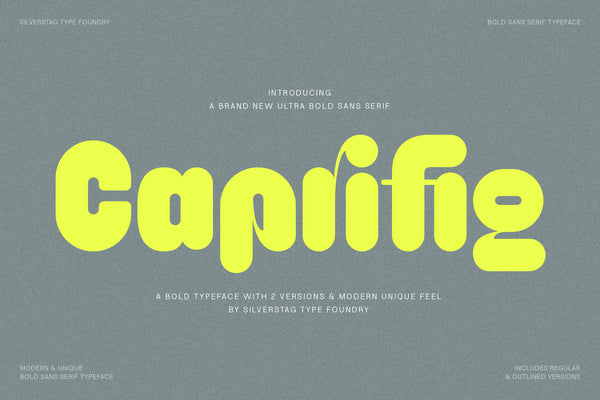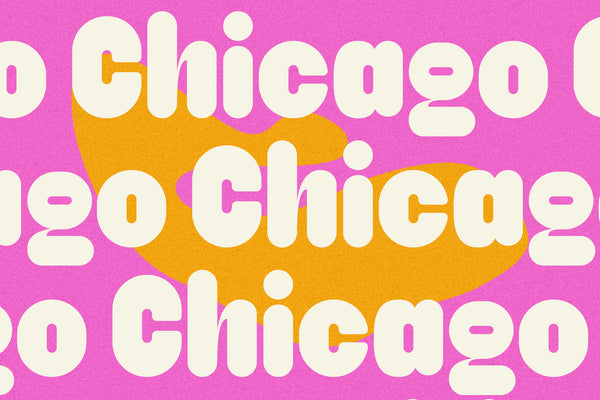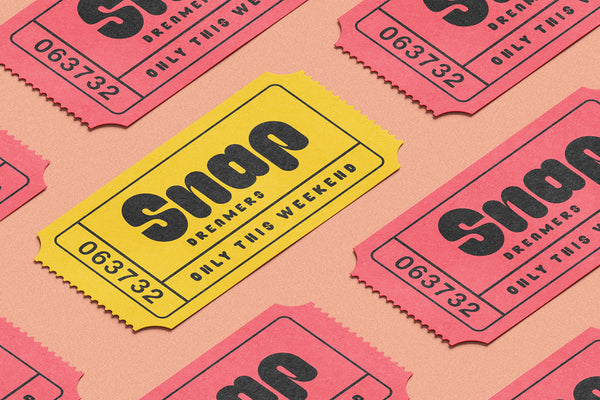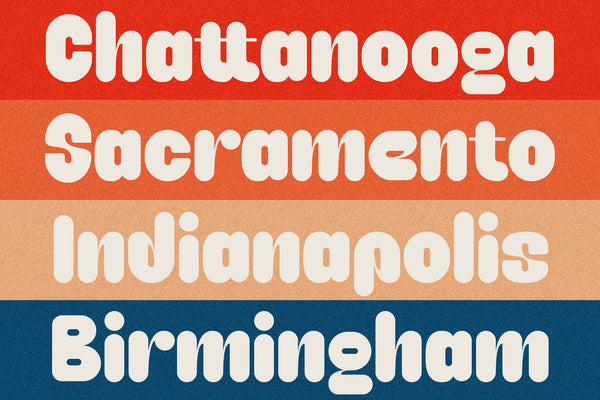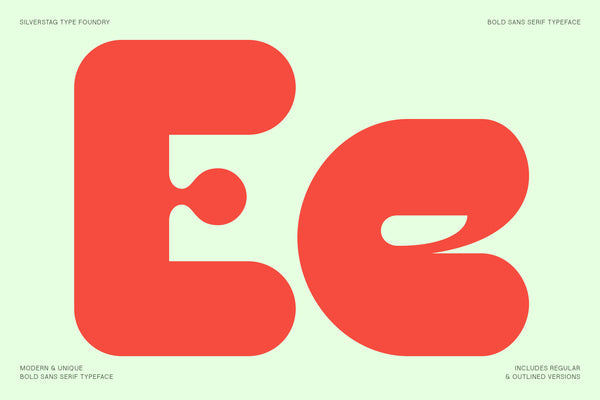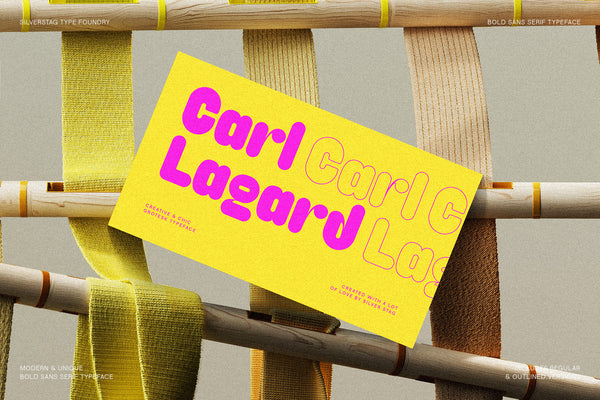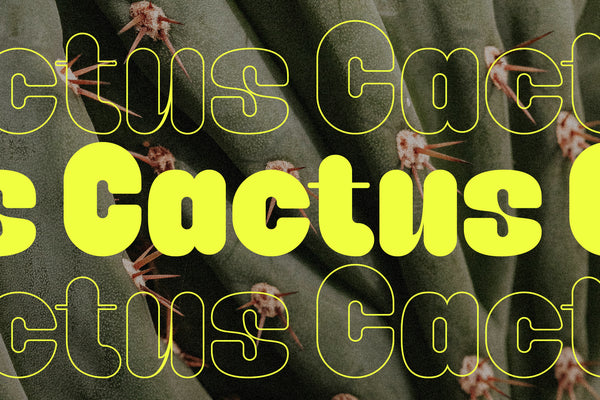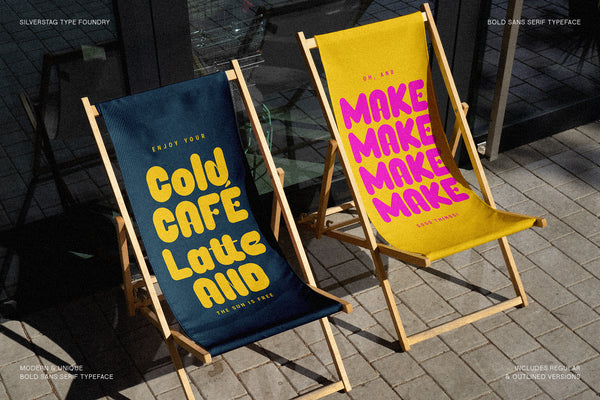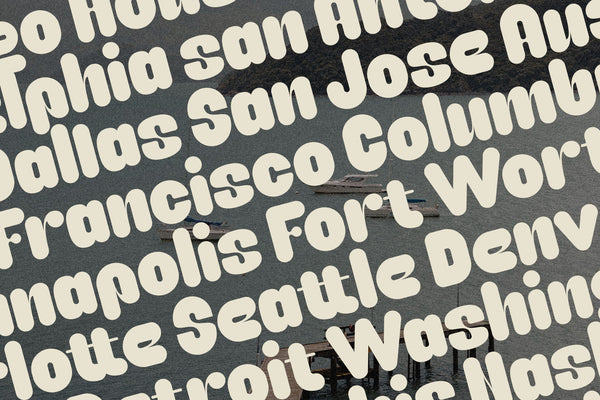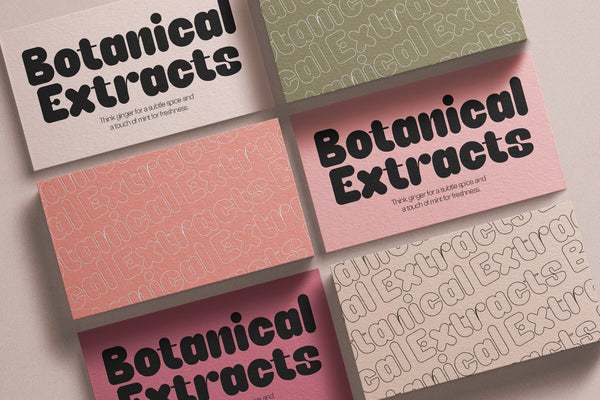
Say hello to Caprifig, a bold and rounded sans serif font designed to spark joy, creativity, and instant visual impact. With soft curves, confident lines, and a personality that’s both modern and playful, Caprifig is perfect for bold brands, standout packaging, and scroll-stopping graphics.
This isn’t just another sans font — Caprifig is a statement-maker. It exudes warmth and charm while delivering strong legibility, making it ideal for everything from headlines and logos to posters and product labels. Whether you’re launching a new brand or freshening up your visual identity, Caprifig brings the friendly energy you’ve been looking for.
Available in two distinctive styles — Regular and Outline — Caprifig gives you flexibility for layering, emphasis, or building cohesive design systems with contrast and playfulness.
Designed with usability in mind, Caprifig includes essential ligatures and supports 90+ languages, making it a globally accessible typeface that plays well across digital and print platforms alike.